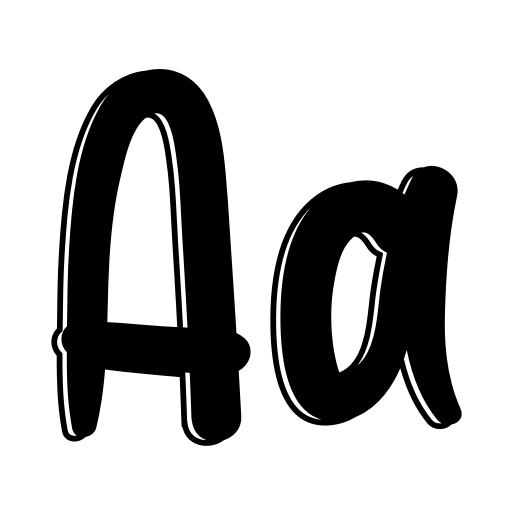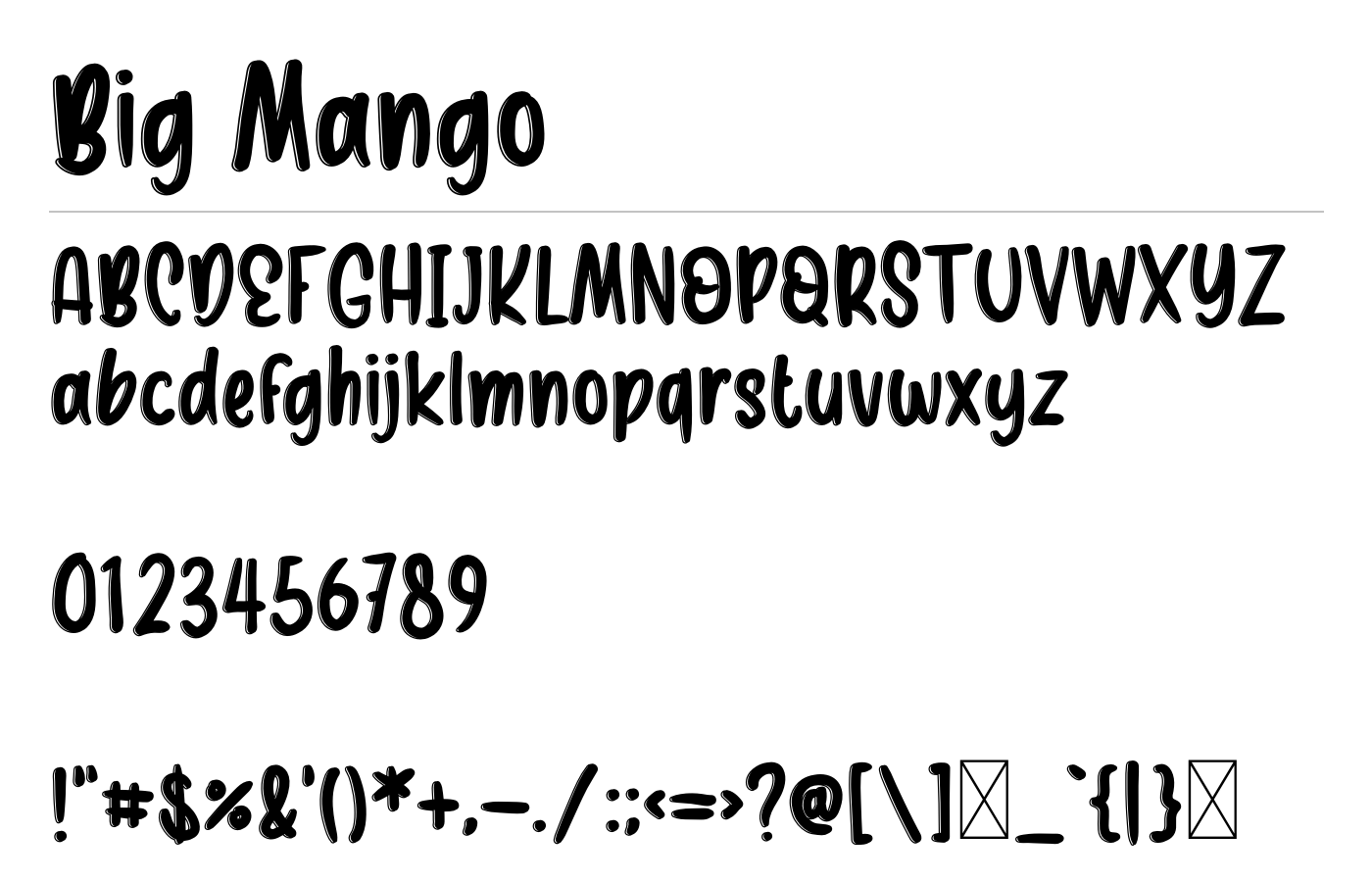
Big Mango is a playful and bold handwritten sans serif font with a friendly and casual vibe. Its rounded, slightly irregular letterforms and medium weight give it an approachable and lively personality, making it perfect for creative projects, children’s products, or informal branding. This font works well for eye-catching headlines, packaging, and social media designs where a fun and personal touch is desired.
Big Mango Font
About Big Mango Font